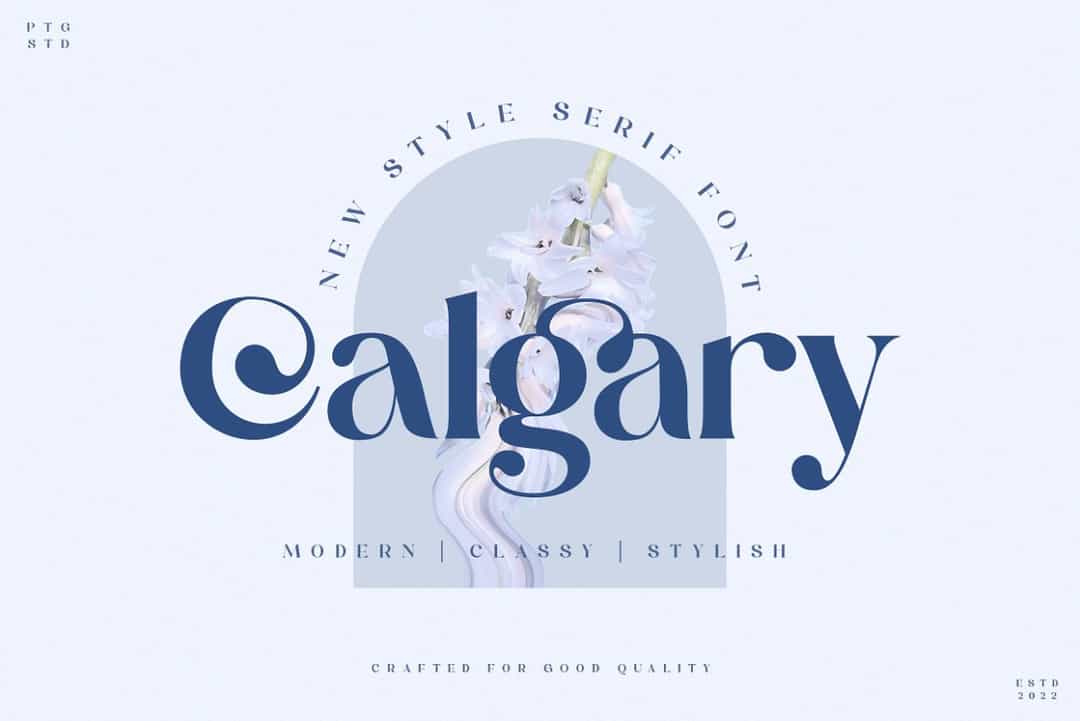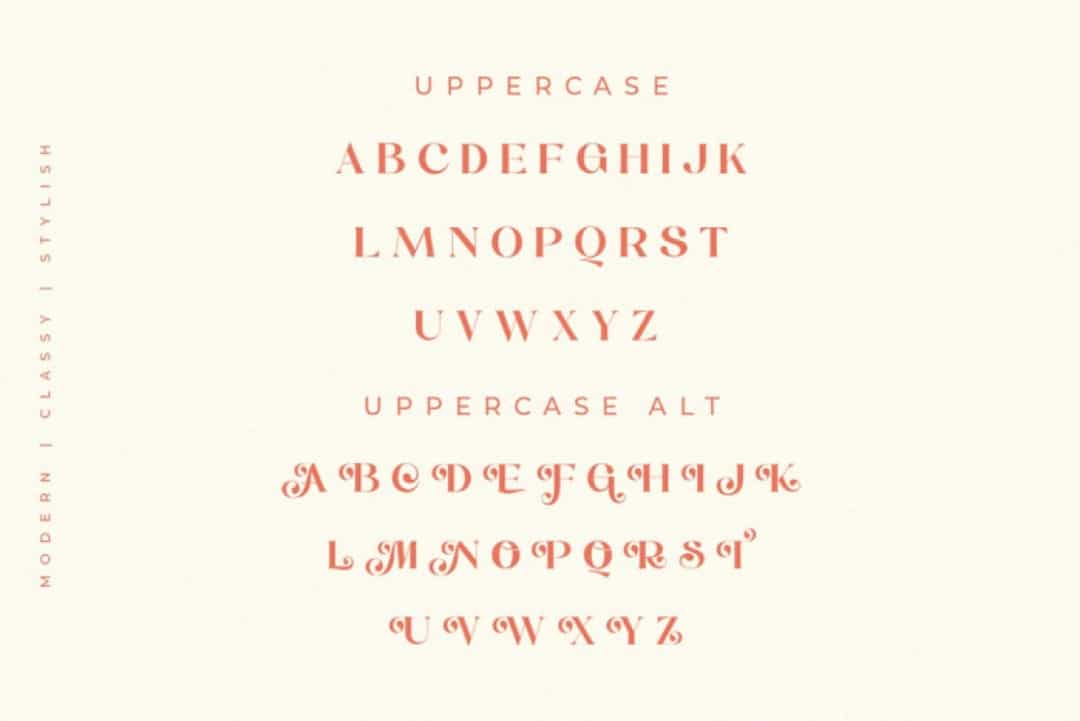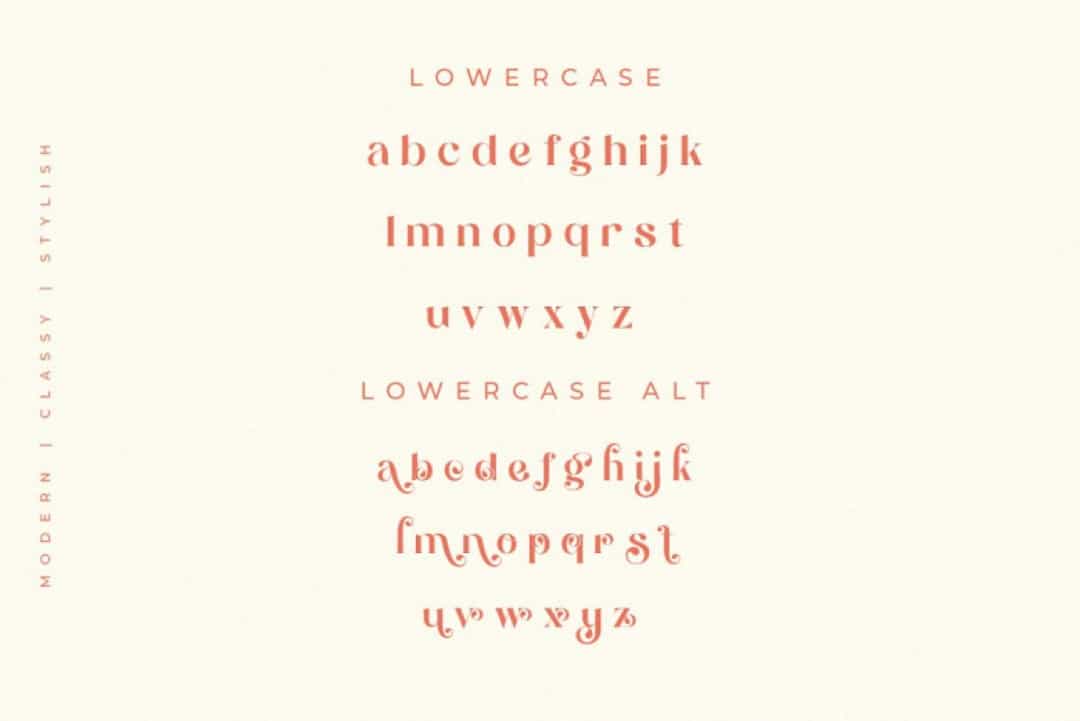
Calgary is an elegant serif font with an attractive serif. PUA encoded, you can quickly use all Swashes and Glyphs. Perfect for flyers and posters! Use Calgary for logo design as well as branding stickers, shirts, posters, signs & quotes designs created using Procreate as Instagram posts… and much more!